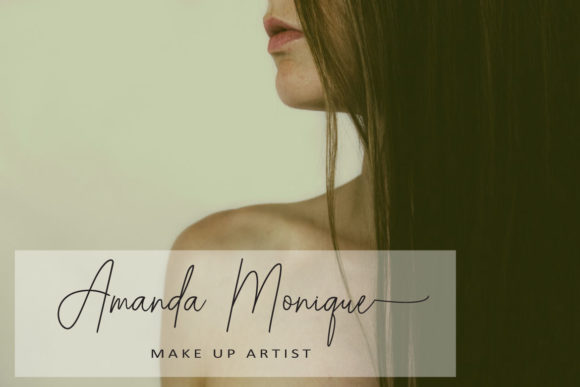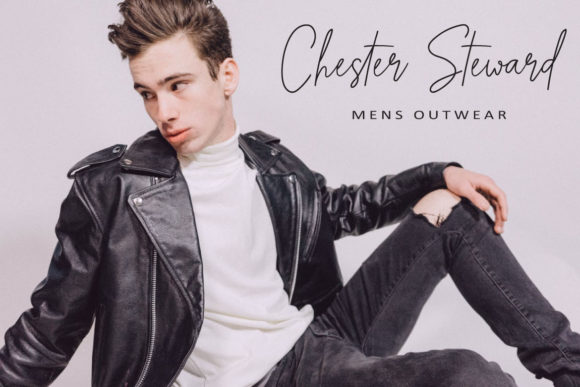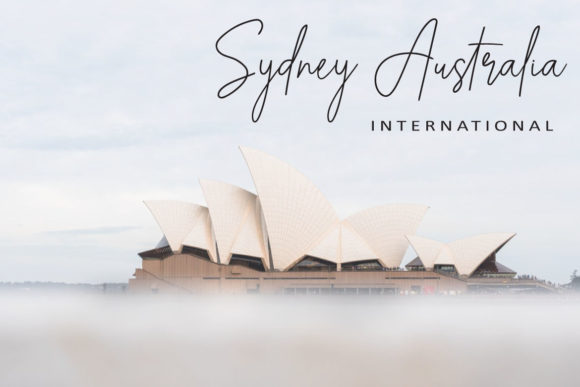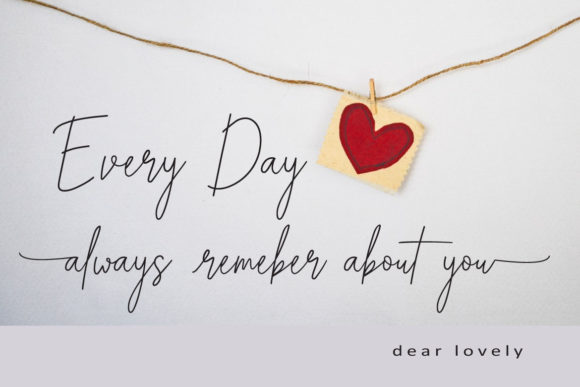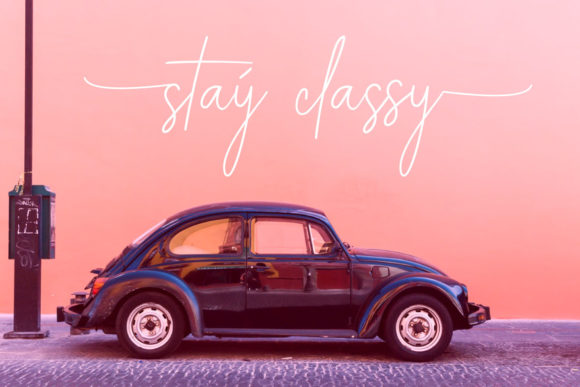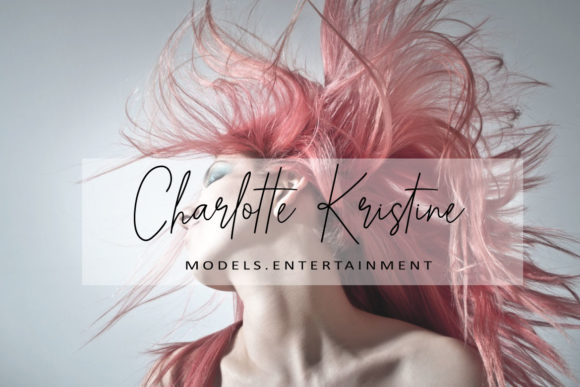
The Alexander Lettering Font: A Timeless Classic with a Modern Twist
I’ll never forget the design project that led me to discover the Alexander Lettering font. I was working on a branding project for a boutique craft business, and I was struggling to find the perfect font that captured the essence of their handmade products. The client wanted something that felt both classic and modern, with a touch of whimsy. After hours of scouring font libraries and testing various combinations, I stumbled upon Alexander Lettering. It was love at first sight! 💕
An Honest Review: What I Love (and What to Watch Out For)
So, what makes Alexander Lettering so special? Here are a few things that I absolutely adore about this font:
- ✨ Authentic charm: Alexander Lettering has a genuine, handwritten feel that adds a touch of warmth to any design.
- ✅ Contemporary twist: Despite its classic roots, this font has a modern edge that makes it perfect for a wide range of design projects.
- 💫 Versatility: Whether you’re designing a logo, a poster, or a social media graphic, Alexander Lettering adapts beautifully to different contexts.
Of course, no font is perfect, and Alexander Lettering has a few quirks to keep in mind:
- ⚠️ Limited kerning options: While the font’s kerning is generally good, you may need to make some manual adjustments to get the spacing just right.
- 🤔 Some glyphs can be finicky: A few of the more intricate glyphs, like the flourishes, can be a bit tricky to work with, especially if you’re new to using OpenType features.
The Story Behind Alexander Lettering
Alexander Lettering was designed by a talented type designer who wanted to create a font that captured the essence of classic handwriting, with a modern twist. The story goes that the designer was inspired by vintage letters and journals, and set out to create a font that would evoke the same feeling of warmth and personality.
| Is Alexander Lettering suitable for body text? | While Alexander Lettering is a beautiful font, it’s best suited for headlines, titles, and short blocks of text. For body text, you may want to choose a font with better legibility. |